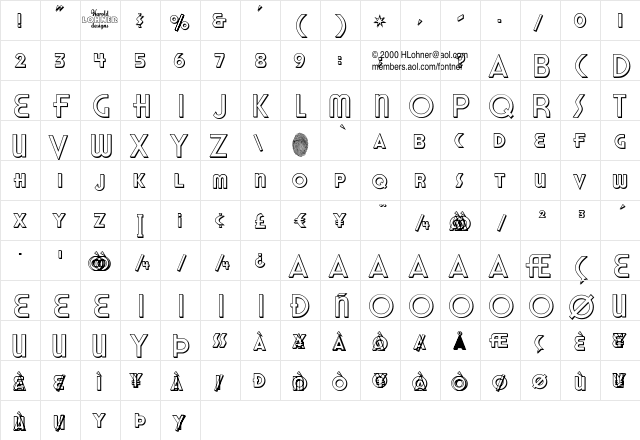
Honest John's Shadow
| Style | Shadow |
Design Context for Honest John's Typeface
Honest John's is built around its visual character rather than neutral utility — its distinctive forms are designed to make an impression at display sizes.
Font Pairing: Pair with a clean neutral sans-serif for body copy to let Honest John's's character lead without overwhelming the composition.
Pro Tip: Treat Honest John's as the centrepiece of your typographic hierarchy. One strong heading set in a decorative face can carry an entire layout.